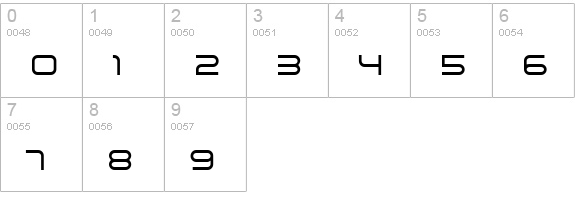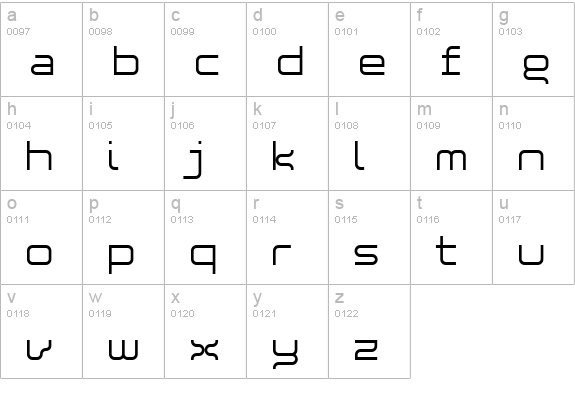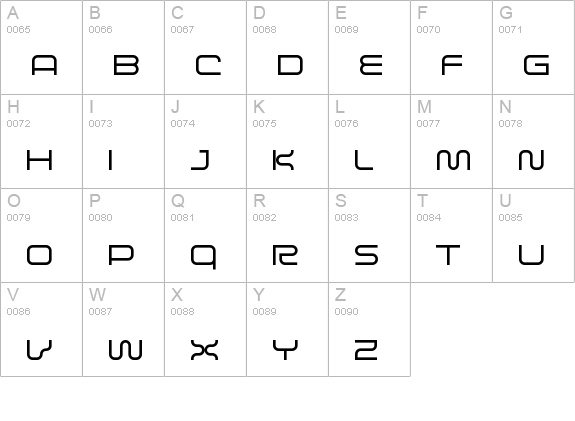
Blessed ExtraLight is an airy, ultra-refined variant in the Blessed typeface family \xE2\x80\x94 well suited to minimalist headlines and refined display use.
Blessed ExtraLight is a beautifully crafted and elegant font that exudes sophistication and charm. Its slender and graceful letterforms make it perfect for adding a touch of refinement to any design project. This font radiates a sense of lightness and delicacy, making it ideal for creating a serene and peaceful atmosphere. What makes Blessed ExtraLight even more special is that it is available for free download at FontsMarket.com. This means you can easily access this stunning font and incorporate it into your designs without any hassle. Whether you're working on a branding project, a wedding invitation, or a social media graphic, Blessed ExtraLight will elevate your design with its timeless beauty. With its captivating presence and effortless style, Blessed ExtraLight is sure to become a favorite in your font collection. Download it for free today and let its grace and elegance uplift your creative projects.